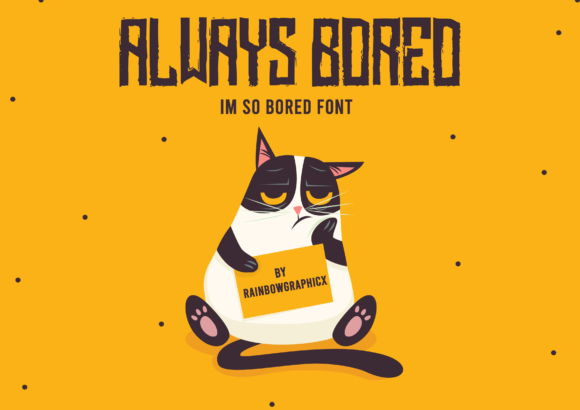
Introduction to I’m so Bored Font
We’ve all been there – staring at a blank page, struggling to find the perfect font to bring our creative project to life. But what if you could add a dash of fun and whimsy to your design, making it truly stand out from the crowd? Enter the I’m so Bored Font, a funky, brush square font that’s sure to add a playful touch to any project.
Whether you’re working on a graphic design project, a social media campaign, or a personal branding exercise, the I’m so Bored Font is a valuable addition to your design resource toolkit. Its high-quality design and transparent background make it easy to integrate into any project, and the best part? It’s a free download, so you can get creative without breaking the bank.
- Unique and creative design perfect for various projects, including graphic design, digital art, and web design.
- High-quality font with a transparent background, allowing for seamless integration into any design.
- Unique characteristics include playful and whimsical letterforms, making it perfect for adding a touch of personality to any design project.
- Perfect for designers looking for a creative and fun font to add to their design arsenal.
Honest Review: I’m so Bored Font
I recently came across the I’m so Bored Font, a free download that caught my attention. As a designer, I appreciate having access to high-quality design resources that can elevate my creative projects.
Here are some things that work well with this font:
- ✨ Unique design: The font’s quirky and playful style makes it perfect for projects that require a bit of whimsy.
- ✨ Transparent background: This feature is a big plus, as it allows for easy integration with any background image or color.
- ⚠️ Limited character set: The font may not have all the characters you need for a specific project, which can be frustrating.
- ⚠️ Not ideal for formal projects: The font’s playful style may not be suitable for formal or professional projects.
Overall, I think the I’m so Bored Font is a great addition to any designer’s toolkit. While it may have some limitations, its unique design and transparent background make it a valuable resource for creative projects.
For a unique look, try pairing the I’m so Bored Font with a transparent background. This will give your design a modern and eye-catching feel.
The I’m so Bored Font is perfect for social media graphics, blog posts, and other digital content. It’s also great for print materials like flyers and posters.